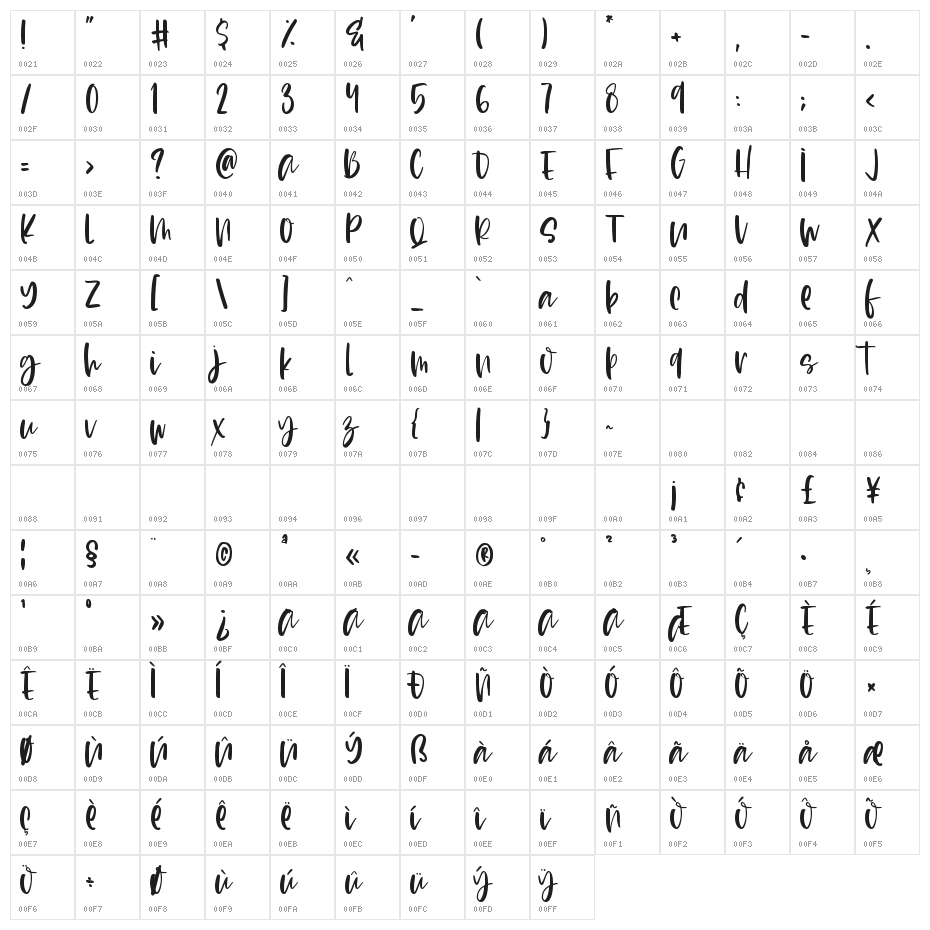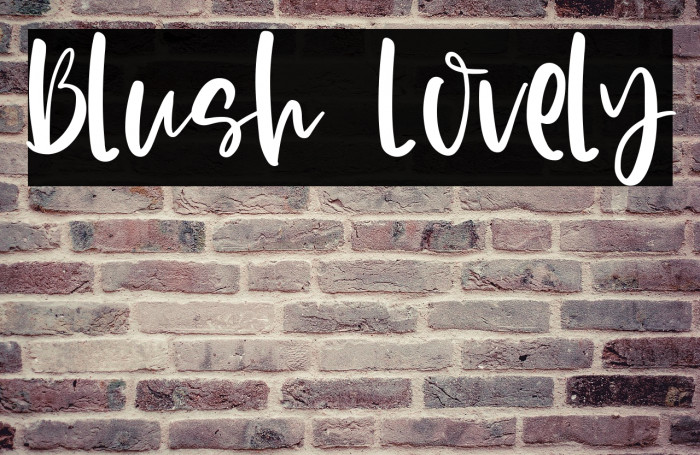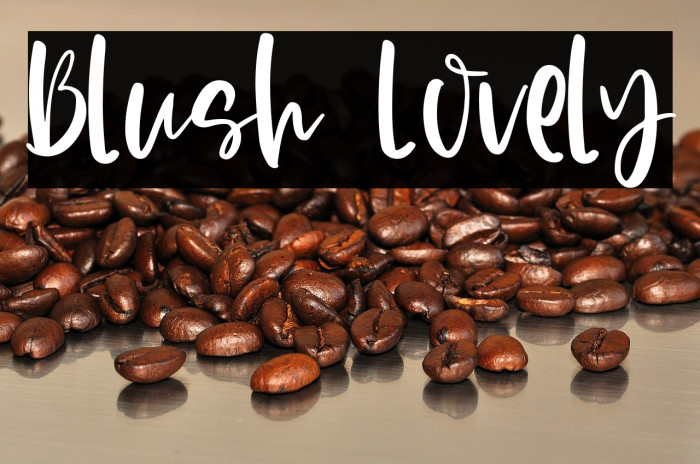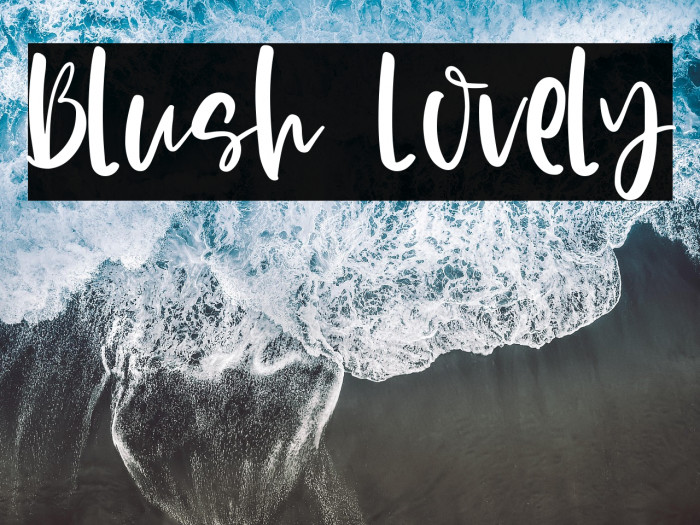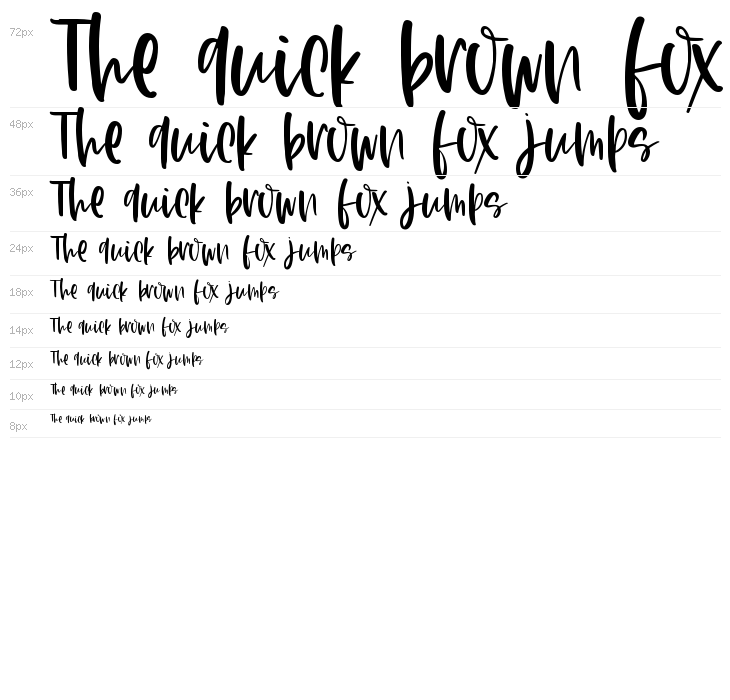
Blush Lovely Font
Blush Lovely Description
This font features a playful and energetic handwritten style, characterized by its bold and flowing letterforms. The strokes are thick and consistent, giving it a strong presence on the page. The letters are slightly slanted, adding a dynamic feel, while the rounded edges contribute to its friendly and approachable appearance. The font maintains a casual yet stylish aesthetic, making it suitable for a variety of creative projects. Its unique character is further enhanced by the inclusion of special characters and numbers, which are designed with the same lively flair.
Proposed ProjectsIdeal for greeting cards, social media graphics, branding, and invitations.